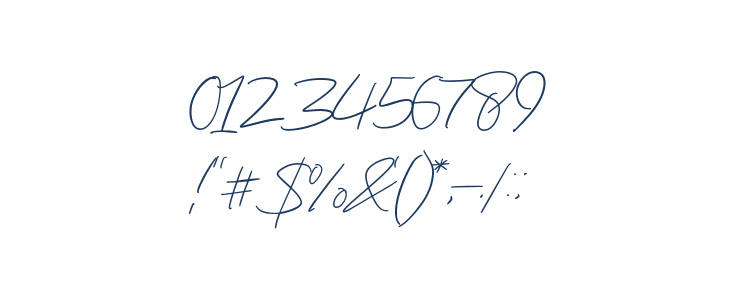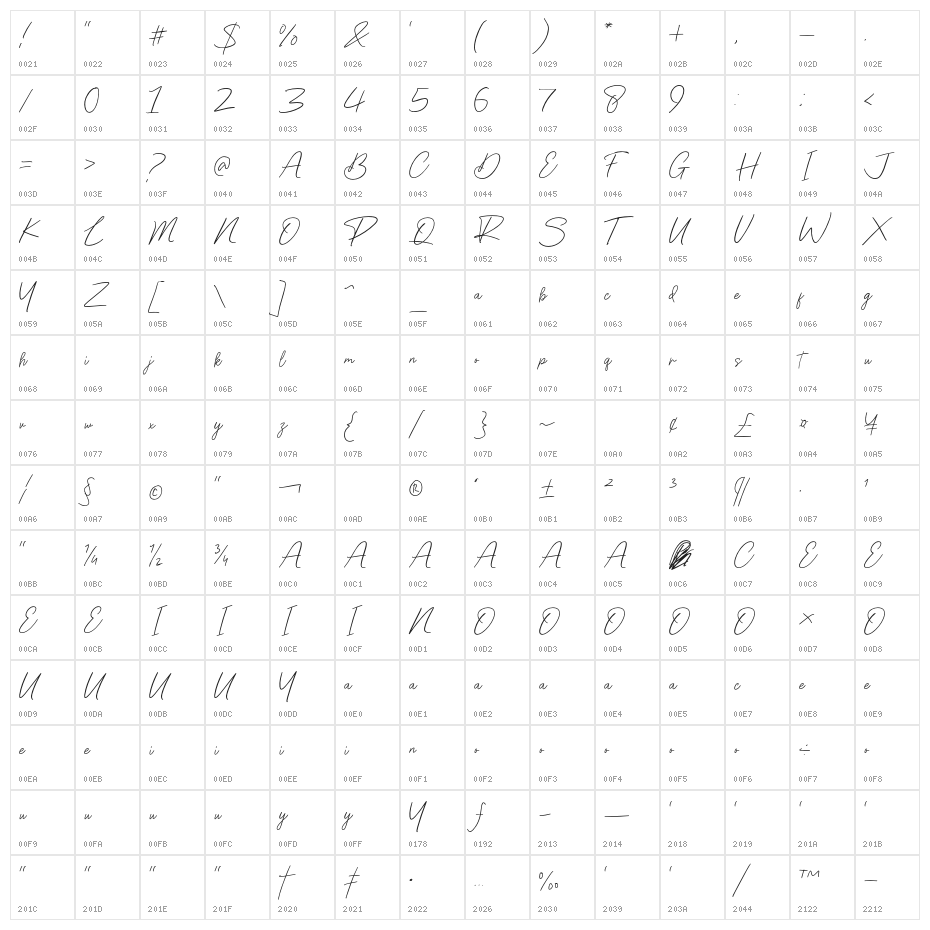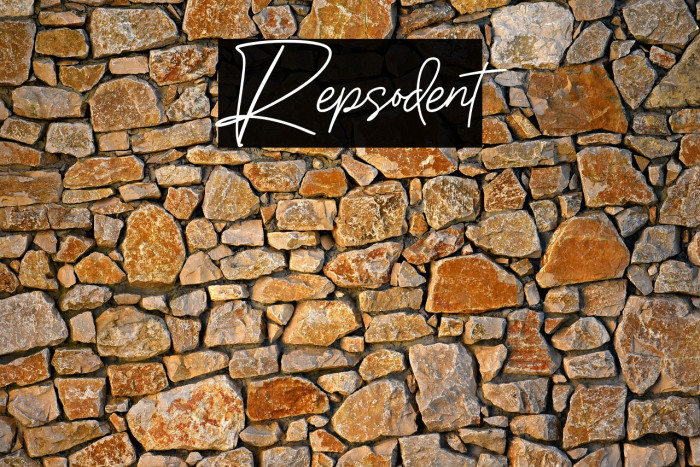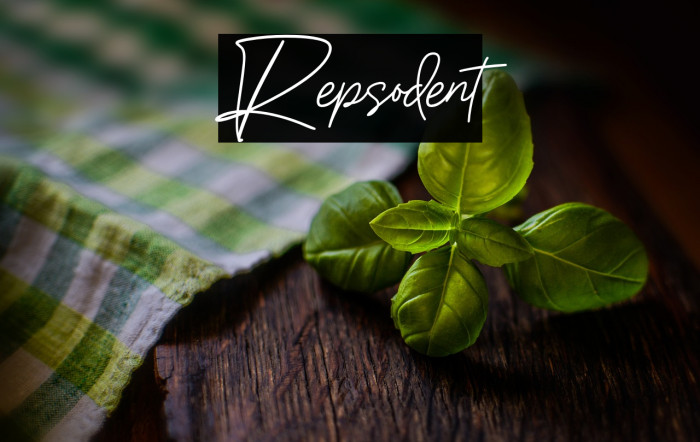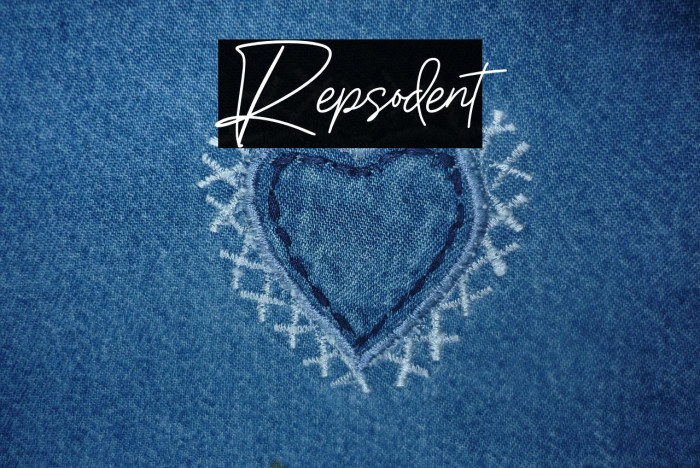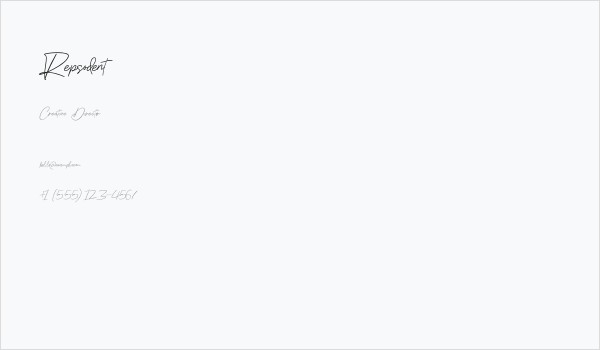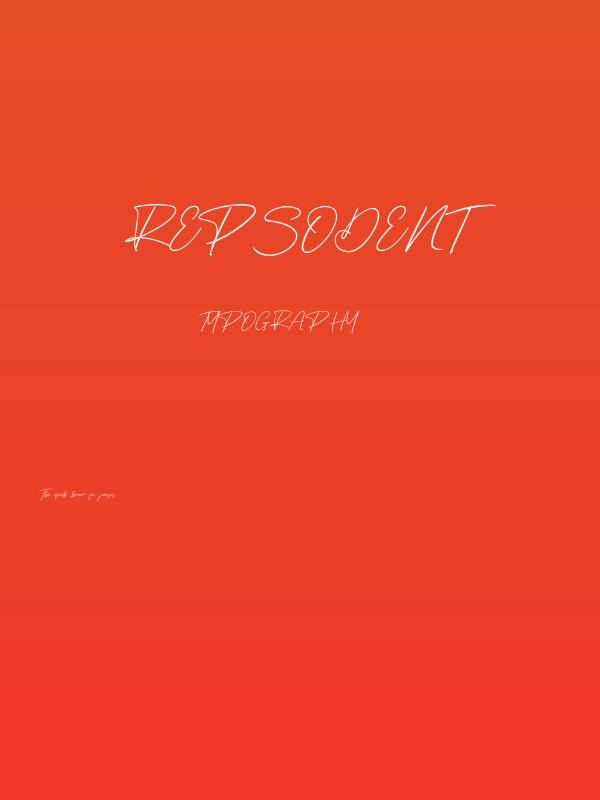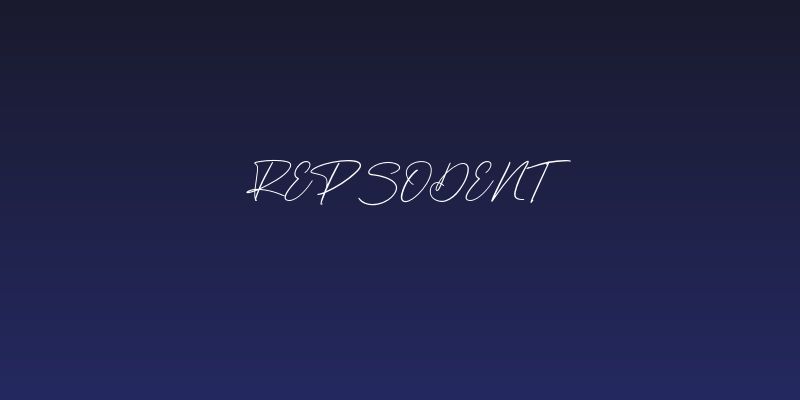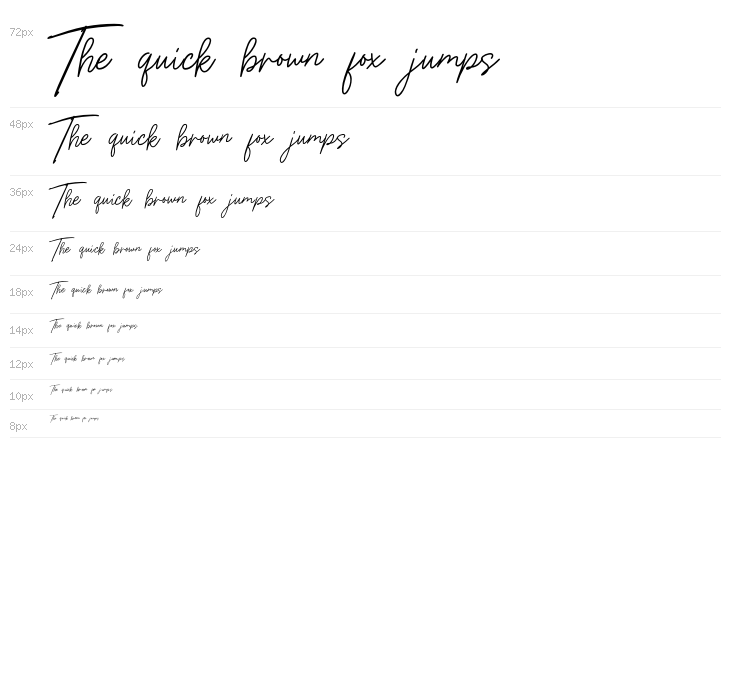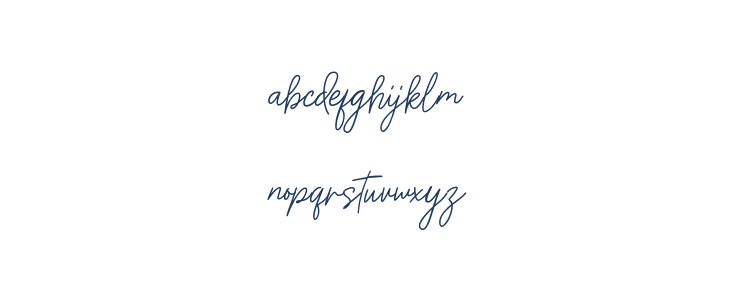
Repsodent Font
Repsodent Description
This elegant script font features fluid, cursive strokes that mimic the natural flow of handwriting. The uppercase letters are tall and graceful, with sweeping curves and delicate loops, while the lowercase letters maintain a consistent style with smooth connections and a slightly more compact form. The numerals and special characters are designed with the same attention to detail, offering a cohesive look across all elements. The font's thin lines and high contrast between thick and thin strokes give it a refined and sophisticated appearance, making it ideal for projects that require a touch of elegance and personal flair.
| Use Case | Logos, Invitations, Personal stationery |
| Proposed Projects | Ideal for wedding invitations, elegant branding, personal stationery, and artistic projects. |